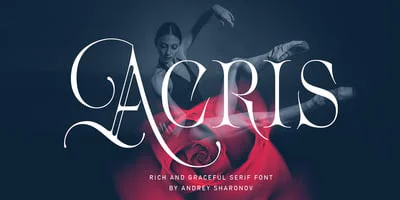
Acris Font
Acris Font is ideal for cutting-edge technology branding, sharp advertising campaigns, precision engineering firms, high-end design studios, blade manufacturing companies, surgical instrument marketing, modern architectural projects, competitive sports branding, razor-sharp business communications, and sophisticated design applications that require crystal-clear definition and uncompromising sharpness.
What makes Acris Font exciting is its razor-sharp precision and crystalline clarity through its meticulously crafted letterforms that cut through visual noise with surgical accuracy and mathematical perfection. This incisive typeface embodies the spirit of precision manufacturing and sharp intellect with its acute character that speaks of laser-focused objectives, cutting-edge innovation, and the kind of mental acuity that separates leaders from followers in competitive business environments requiring absolute clarity and decisive action.
The Acris Font family includes ultra-light, regular, and bold weights designed to maintain its sharp authenticity across various precision applications. Special technical symbols, sharp-angled ornaments, and precision-themed decorative elements complement the main typeface, while knife-edge spacing ensures optimal readability for both detailed technical specifications and large-scale corporate presentations requiring maximum visual impact and clarity.
Acris Font offers precision-focused professionals access to typography that never dulls its edge. Its expertly honed letterforms maintain exceptional legibility while projecting an image of technical excellence and sharp business acumen. The font's versatile nature works brilliantly for both high-tech startups and established companies demanding cutting-edge visual identity.
Sharpen your design edge with Acris Font and create communications that cut straight to the point while demonstrating the precision thinking that drives business success.